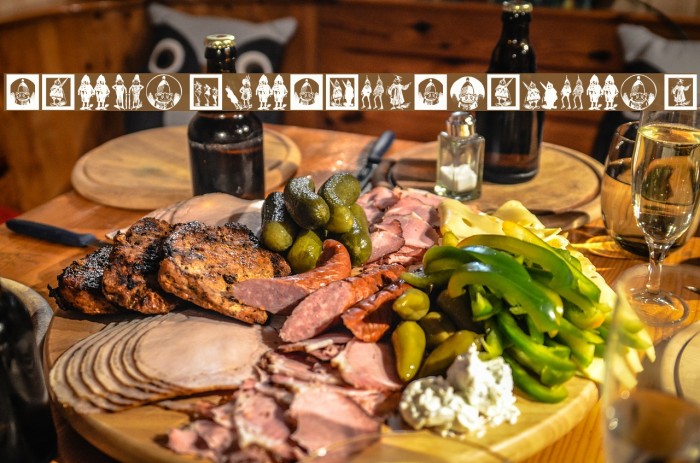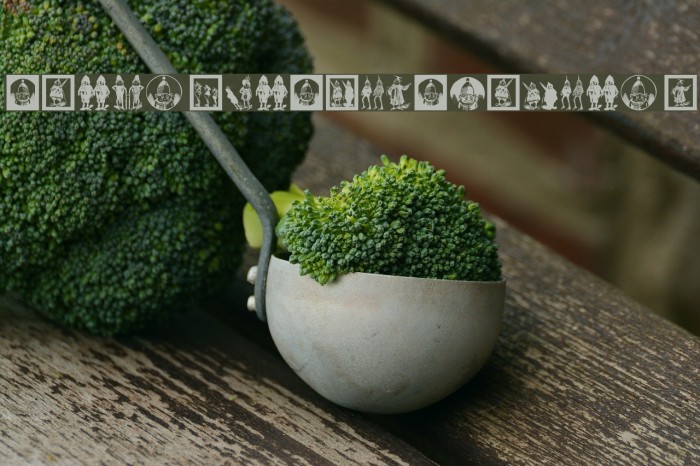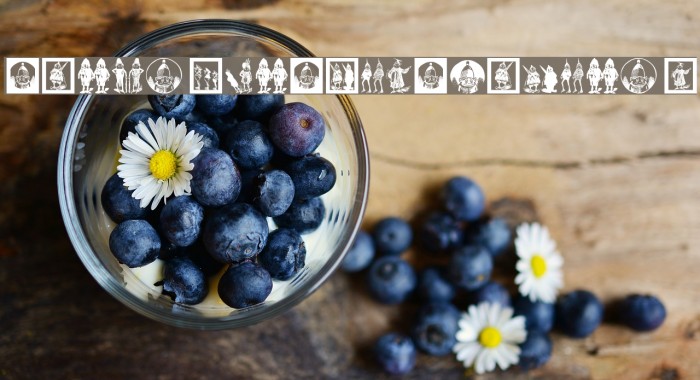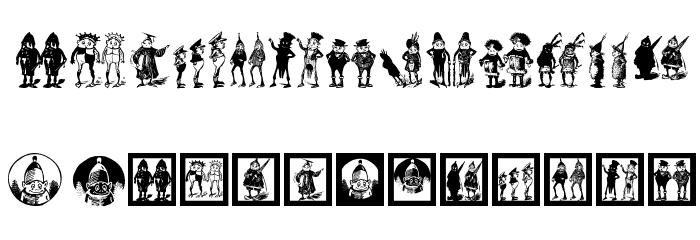
TrainWhatVectorMeans Font
A highly decorative and whimsical font composed of illustrated characters and figures, each glyph represented by a unique cartoon-like drawing with strong black and white contrast, giving a playful and storybook feel.
| Overall Style | Decorative, Whimsical, Playful |
| Use Case | Headlines, Logos, Posters, Themed Graphics |
| Proposed Projects | Children's books, storybook titles, posters, themed party invitations, creative branding, and playful packaging. |